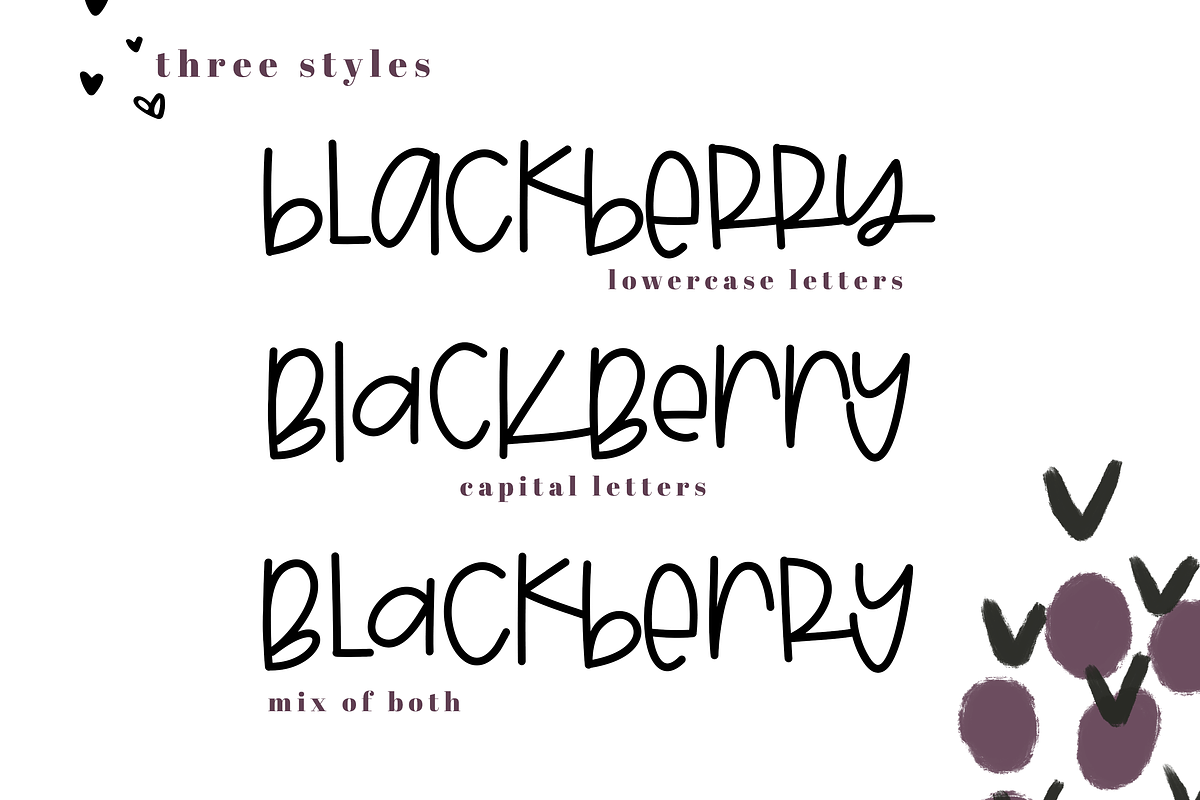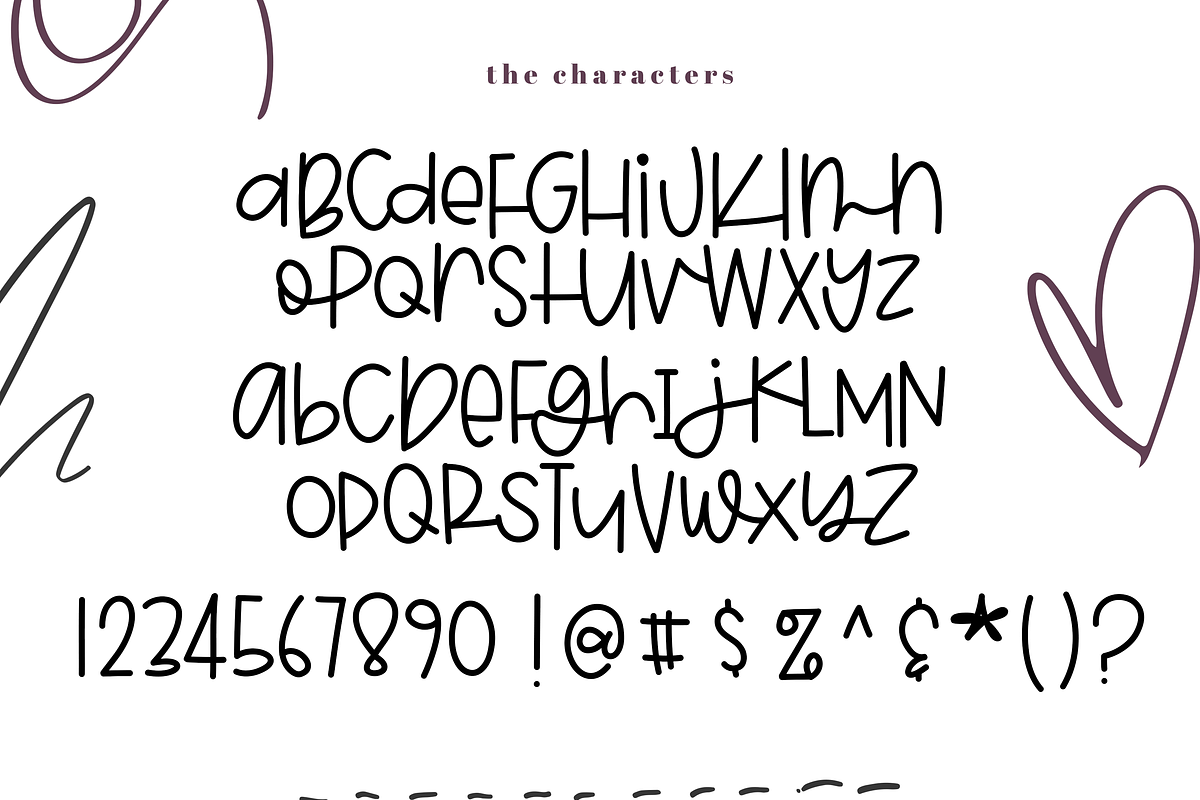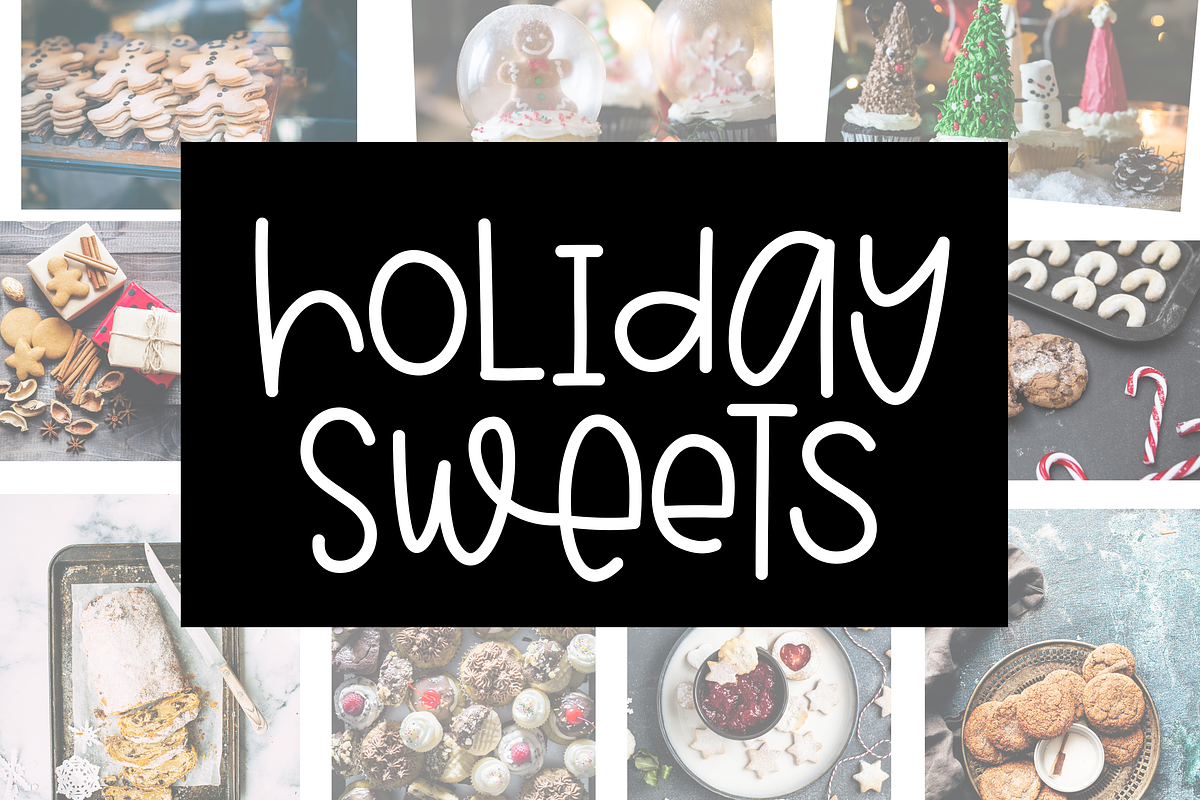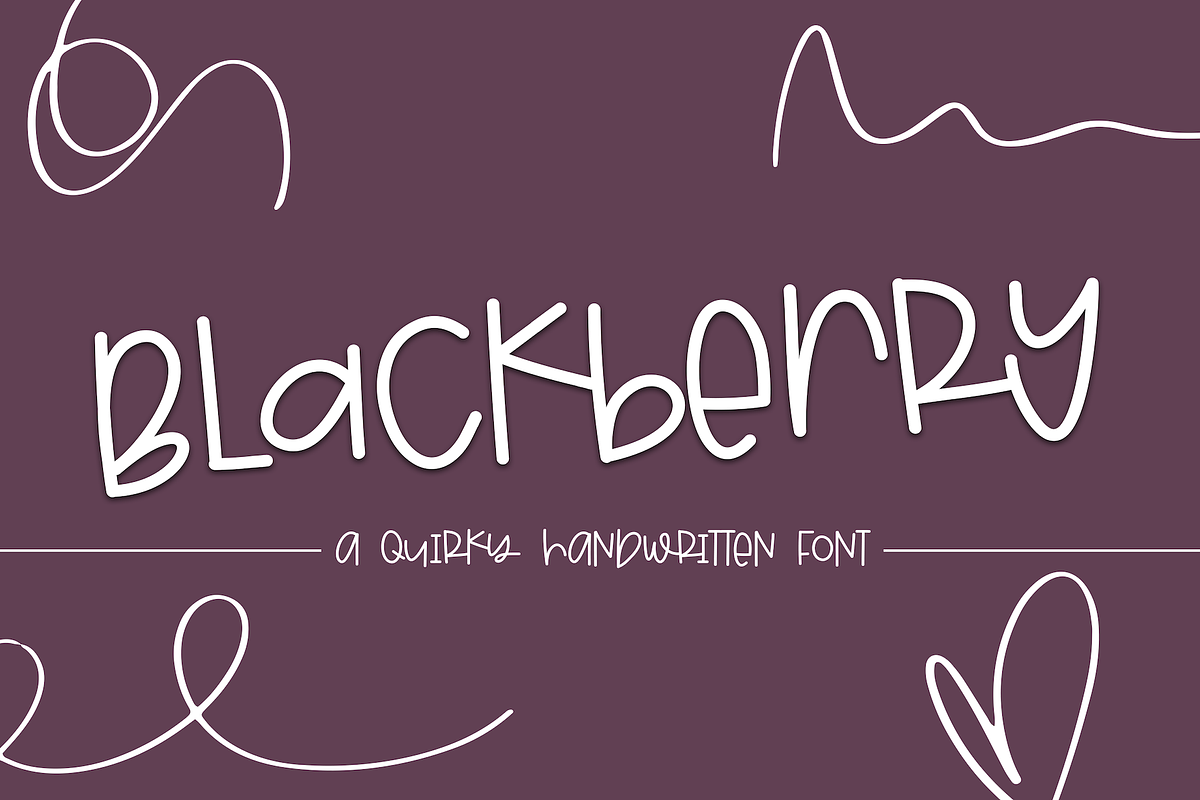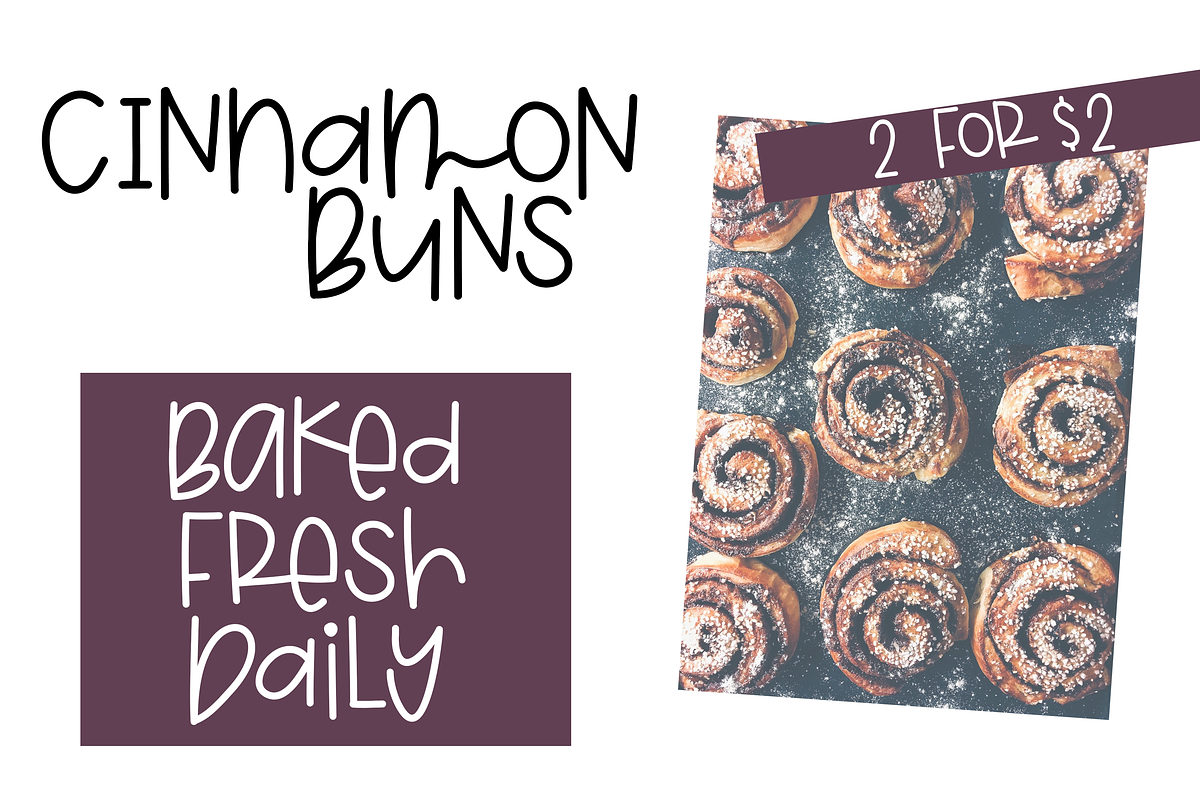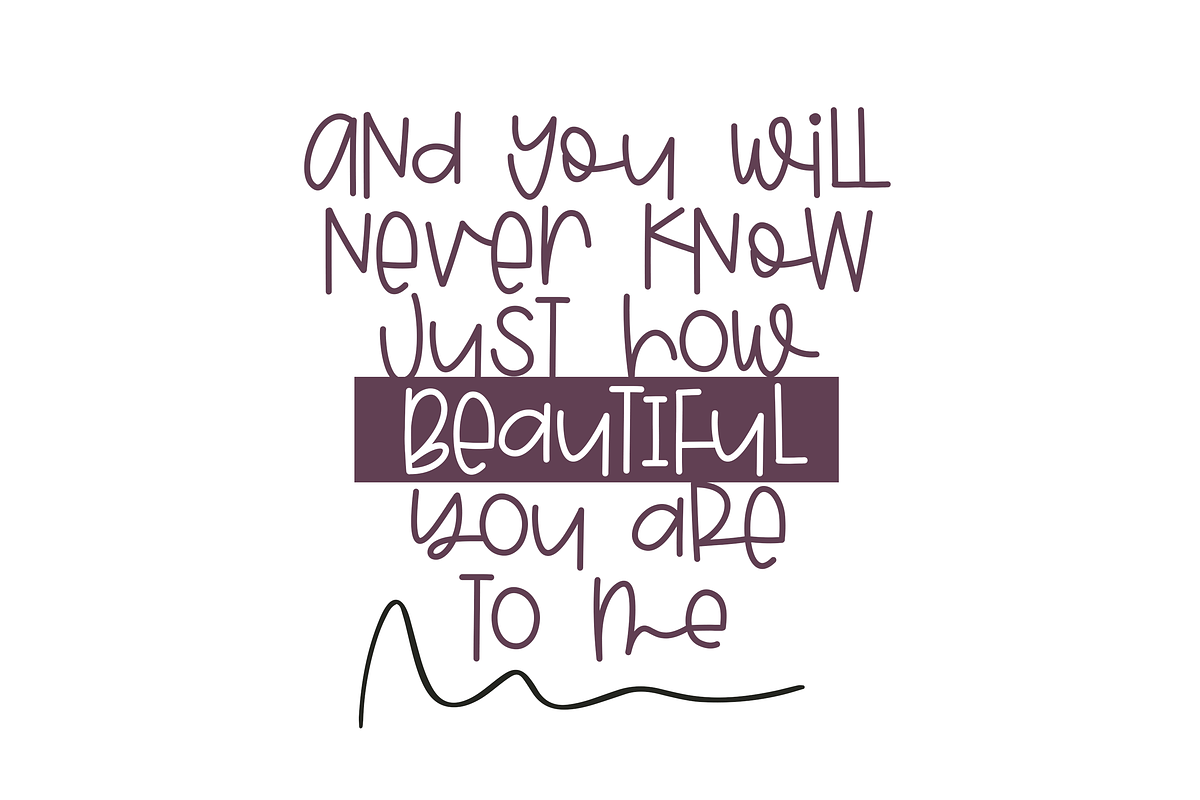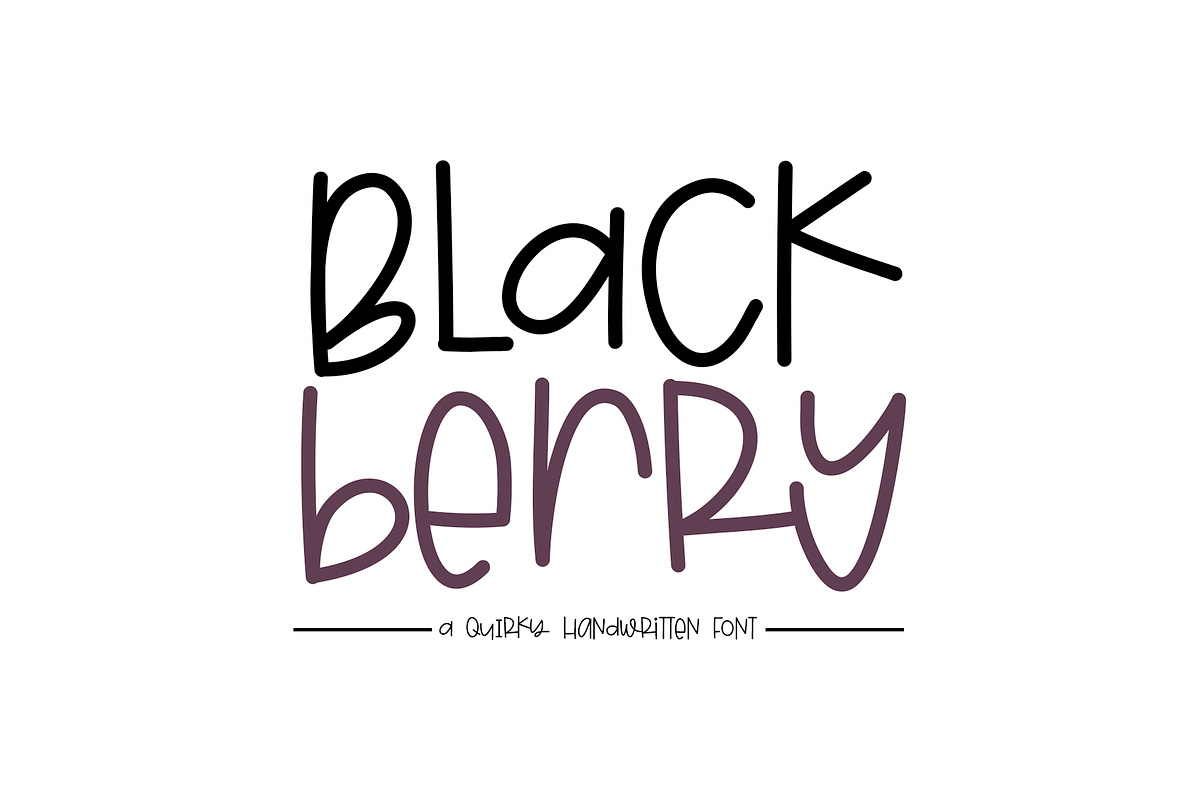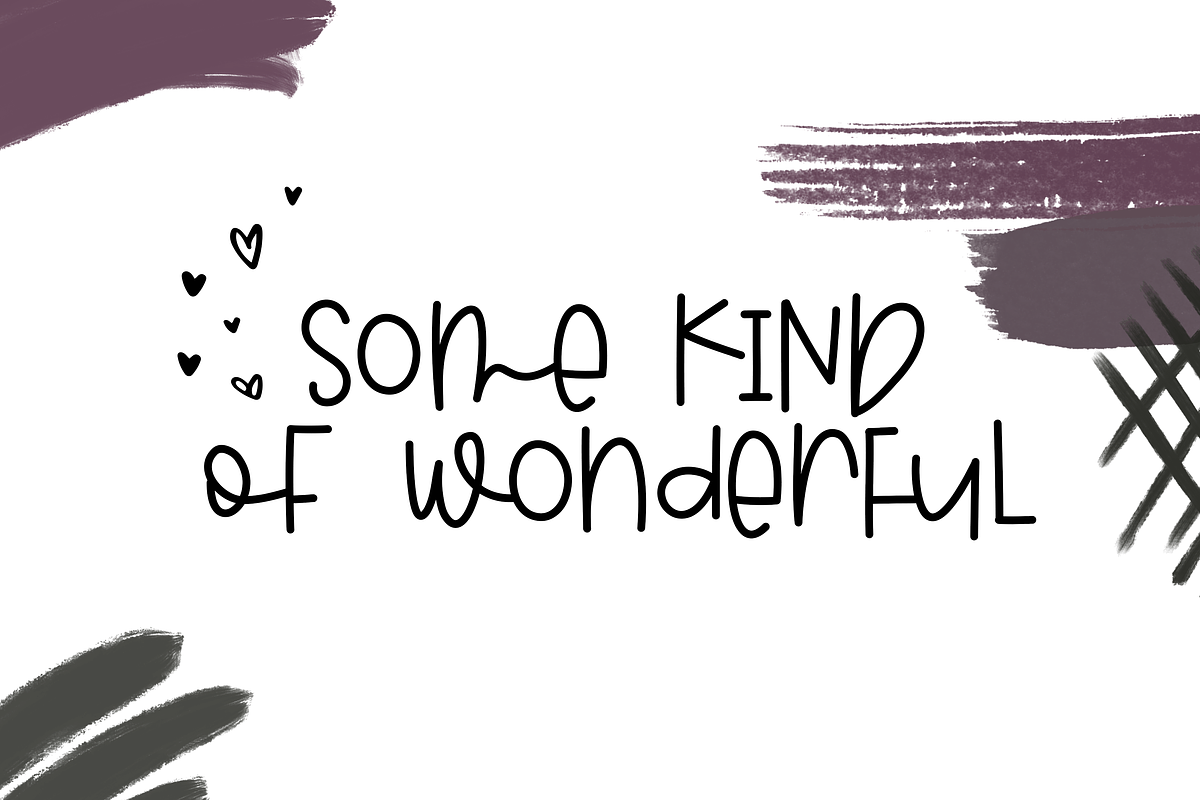
Blackberry - Quirky Handwritten Font
Blackberry is a fun, mismatched font. It has a unique and quirky look to it!
You can get three styles in one with this font:
Type in all capital letters
Type in all lowercase letters
Type with a mix of both
This font is perfect for quotes, headings, blogs, logos, invitations and more!
This font does include accent characters